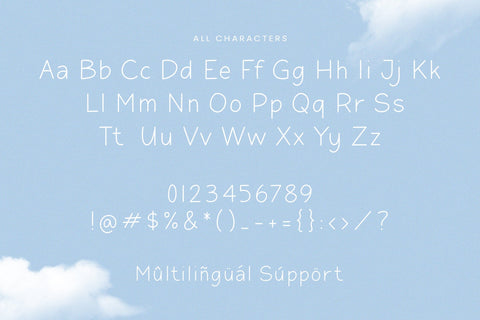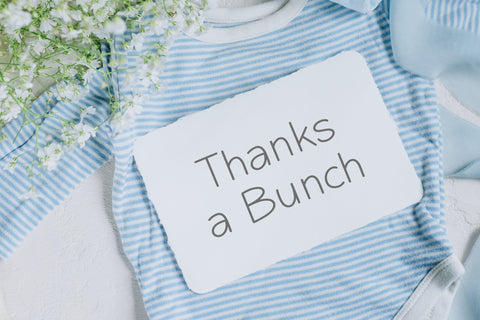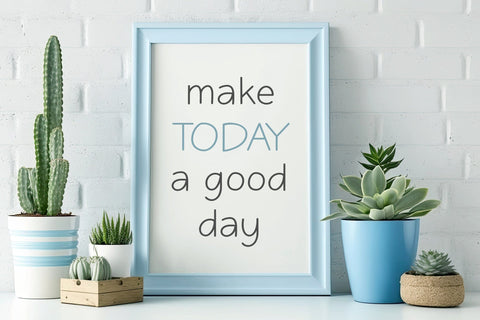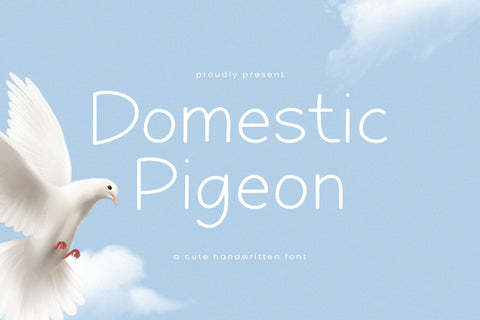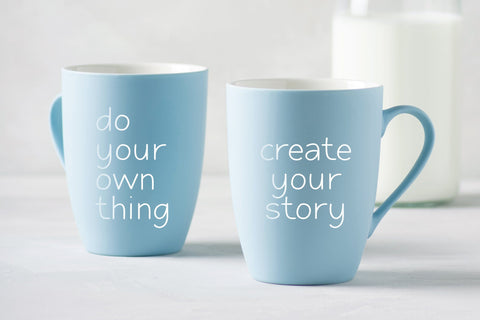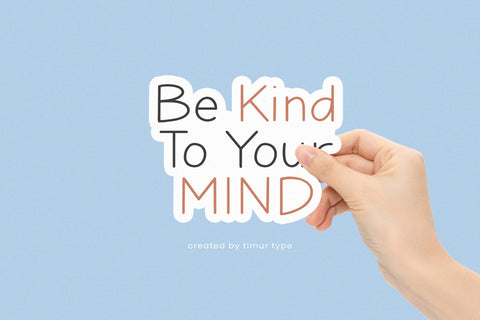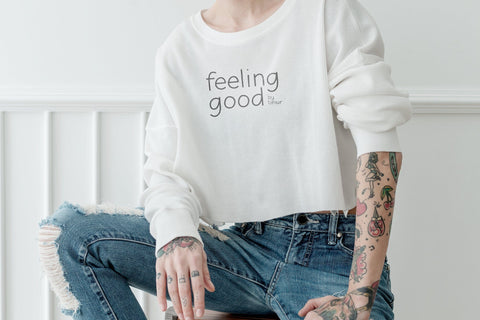
Domestic Pigeon - Cute Handwritten Font
Domestic Pigeon is a Cute Handwritten Font
This font is absolutely adorable and charming, capturing the essence of whimsy and playfulness. With its delicate and flowing letterforms, this font brings a delightful handcrafted feel to any design. The cute and lovable style makes it perfect for adding a touch of sweetness to greeting cards, invitations, and stationery. The Domestic Pigeon font exudes a sense of warmth and friendliness, making it a great choice for creating designs that evoke a sense of joy and lightheartedness. Embrace the cuteness and infuse your projects with the endearing charm of the Domestic Pigeon cute handwritten font
Domestic Pigeon Font also supports multilingualism.